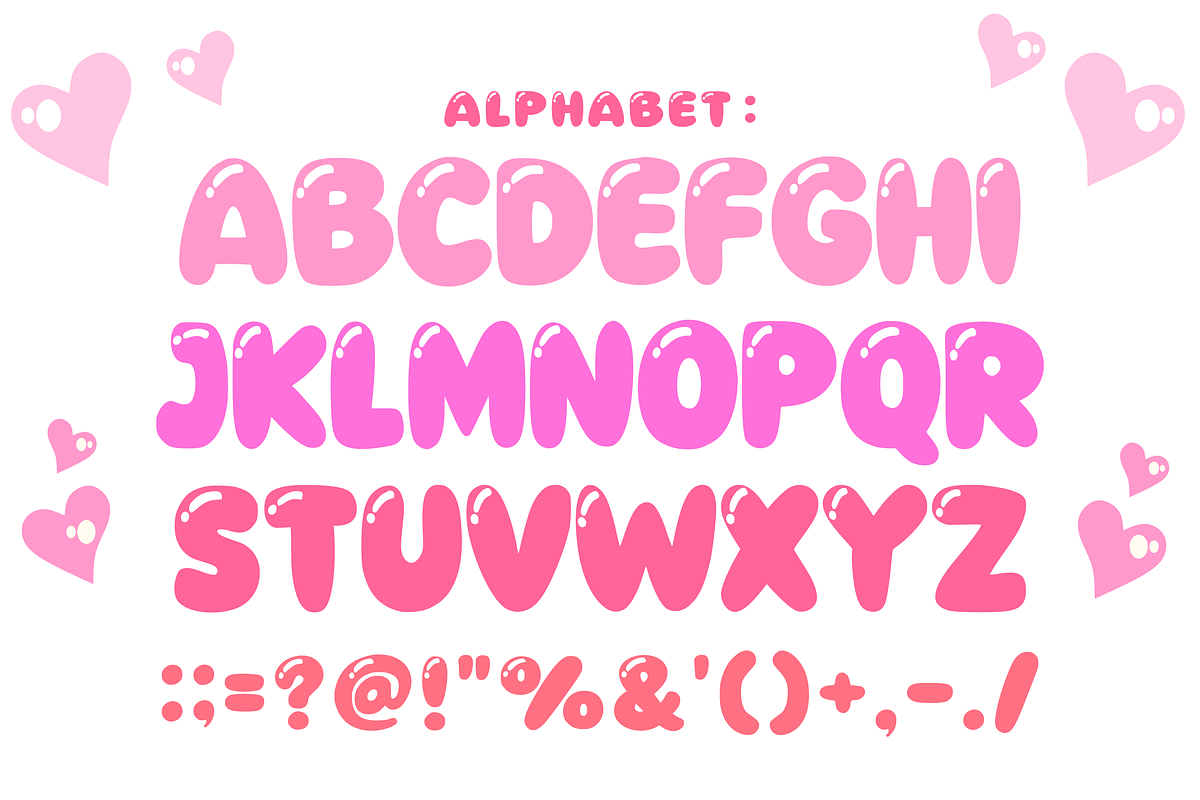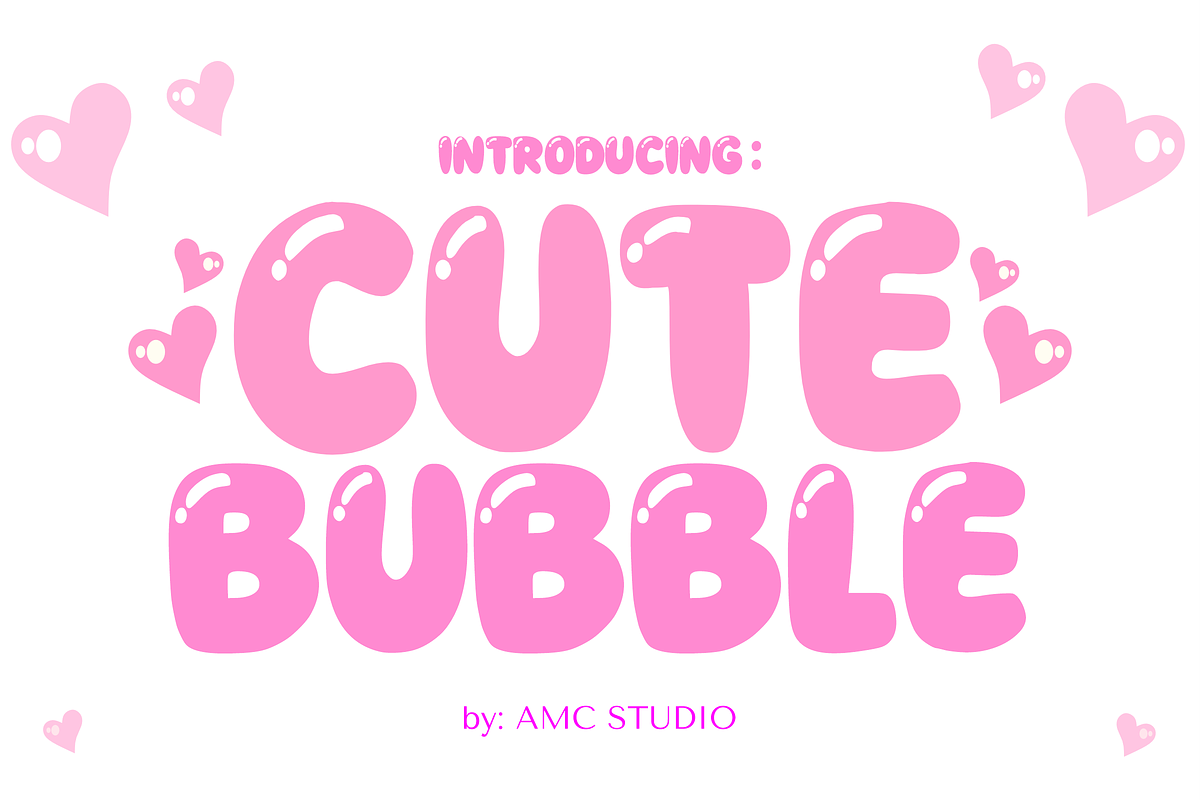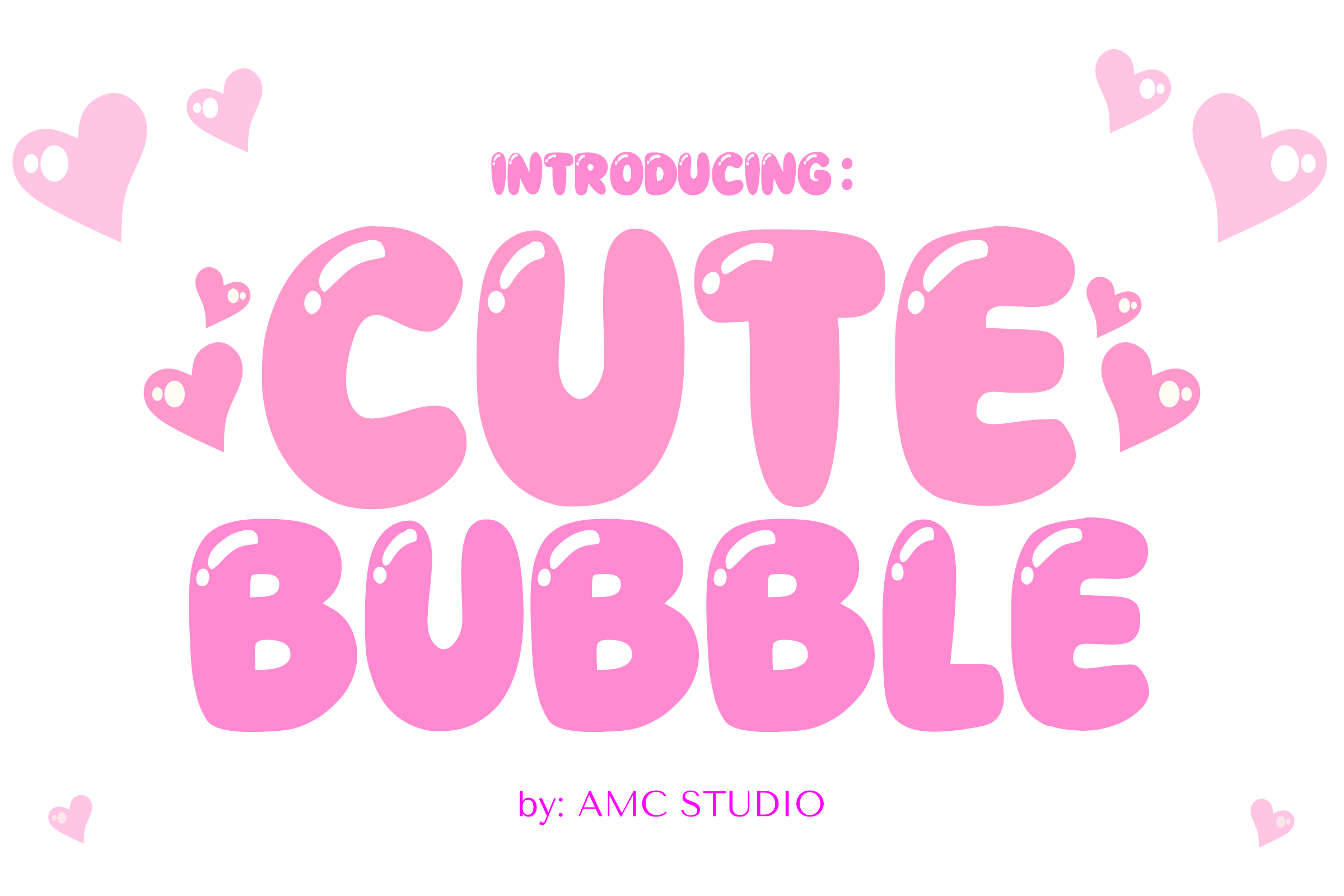
Cute Bubble - Bubble Font Types
“Cute Bubble Font” is a fun and cheerful typeface, with rounded corners that give a friendly and playful impression. This font is designed to convey a cheerful and affectionate message, suitable for use in social media, invitations, comics, web, or other digital designs. With an expressive and colorful letter style, this font adds joy and warmth to the design, creating a unique and attractive impression.